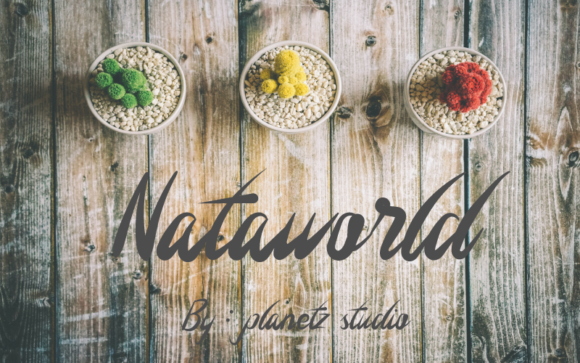
Unleash the Allure of Nataworld Font: A Handcrafted Masterpiece for Your Creative Endeavors
Step into a world of elegance and grace with Nataworld Font, a breathtaking handwritten font that will captivate your senses and elevate your designs to new heights. Crafted with meticulous attention to detail by the talented artisans at Planetz Studio, Nataworld is an exquisite font that exudes both beauty and versatility.
Immerse yourself in the world of Nataworld and discover a font that dances across the page with its enchanting curves and delicate strokes. Each character is a work of art, lovingly crafted to convey a sense of authenticity and charm. Whether you're creating wedding invitations, designing posters, or crafting social media posts, Nataworld will add a touch of sophistication and elegance to all your projects.
Indulge in the limitless possibilities that Nataworld Font offers. Its versatility knows no bounds, making it the perfect choice for a wide range of creative endeavors. From crafting eye-catching logos and business signs to designing stunning flyers and brochures, Nataworld seamlessly adapts to your vision and brings your ideas to life.
Nataworld Font is more than just a font; it's an expression of your creativity, a reflection of your unique style. With its captivating charm and timeless appeal, it will transform your designs into works of art that resonate with your audience. Embrace the beauty of Nataworld Font and unlock a new world of creative possibilities today!